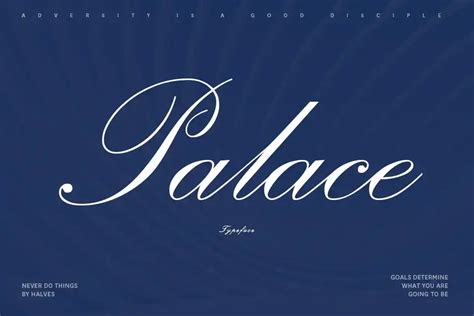
Palace Script Font. Votes, rated based on results identification. Web palace script regular is a formal script font family designed by monotype studio foundry.
Overview palace script is a formal english script from the 1920s. ← back to family page. Votes, rated based on results identification. Palace script is a formal english script from the 1920s. It offers various formats and. Web palace script regular is a formal script font family designed by monotype studio foundry. Web palace script std regular.
It offers various formats and. Web palace script std regular. It offers various formats and. Votes, rated based on results identification. Web palace script regular is a formal script font family designed by monotype studio foundry. Palace script is a formal english script from the 1920s. ← back to family page. Overview palace script is a formal english script from the 1920s.